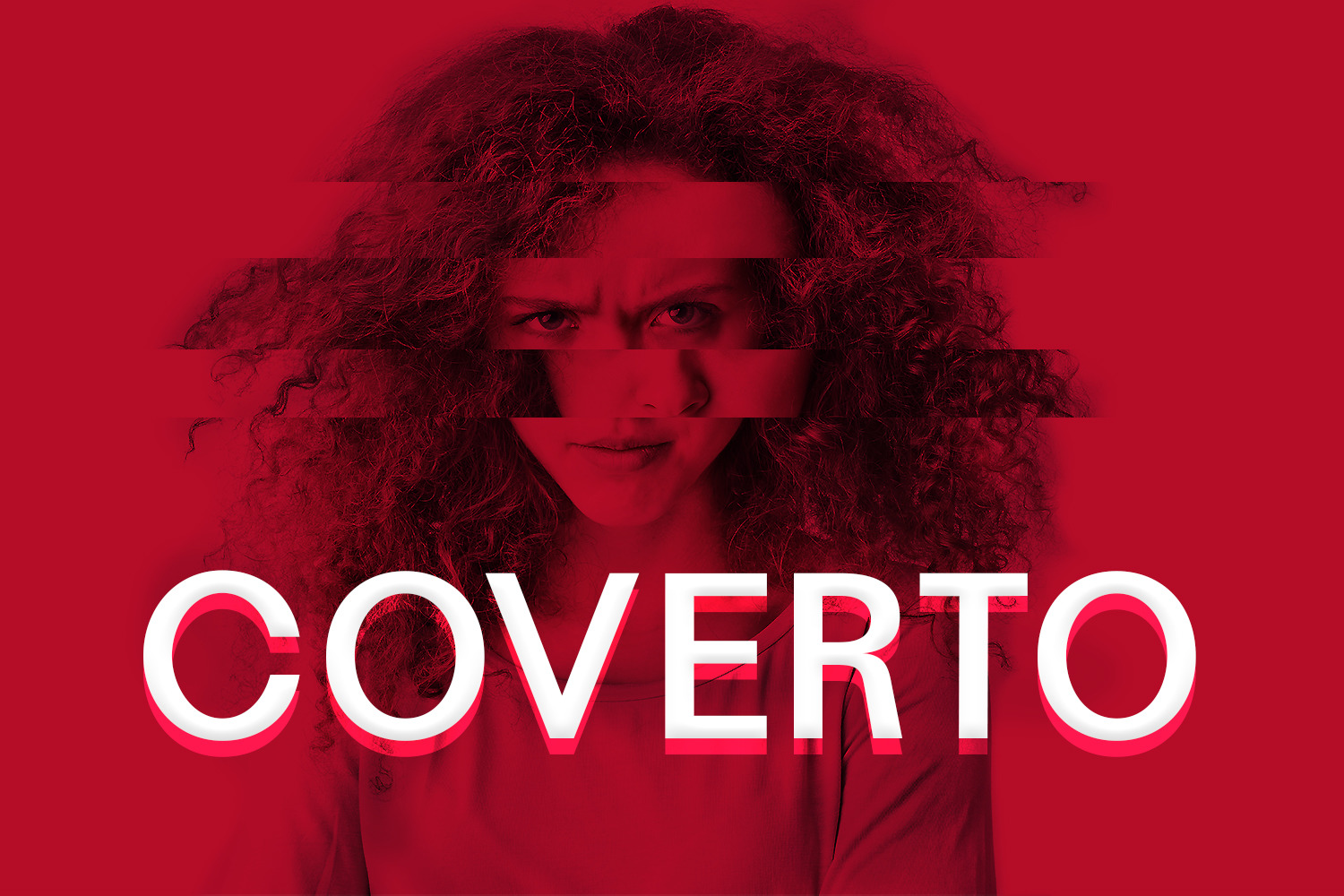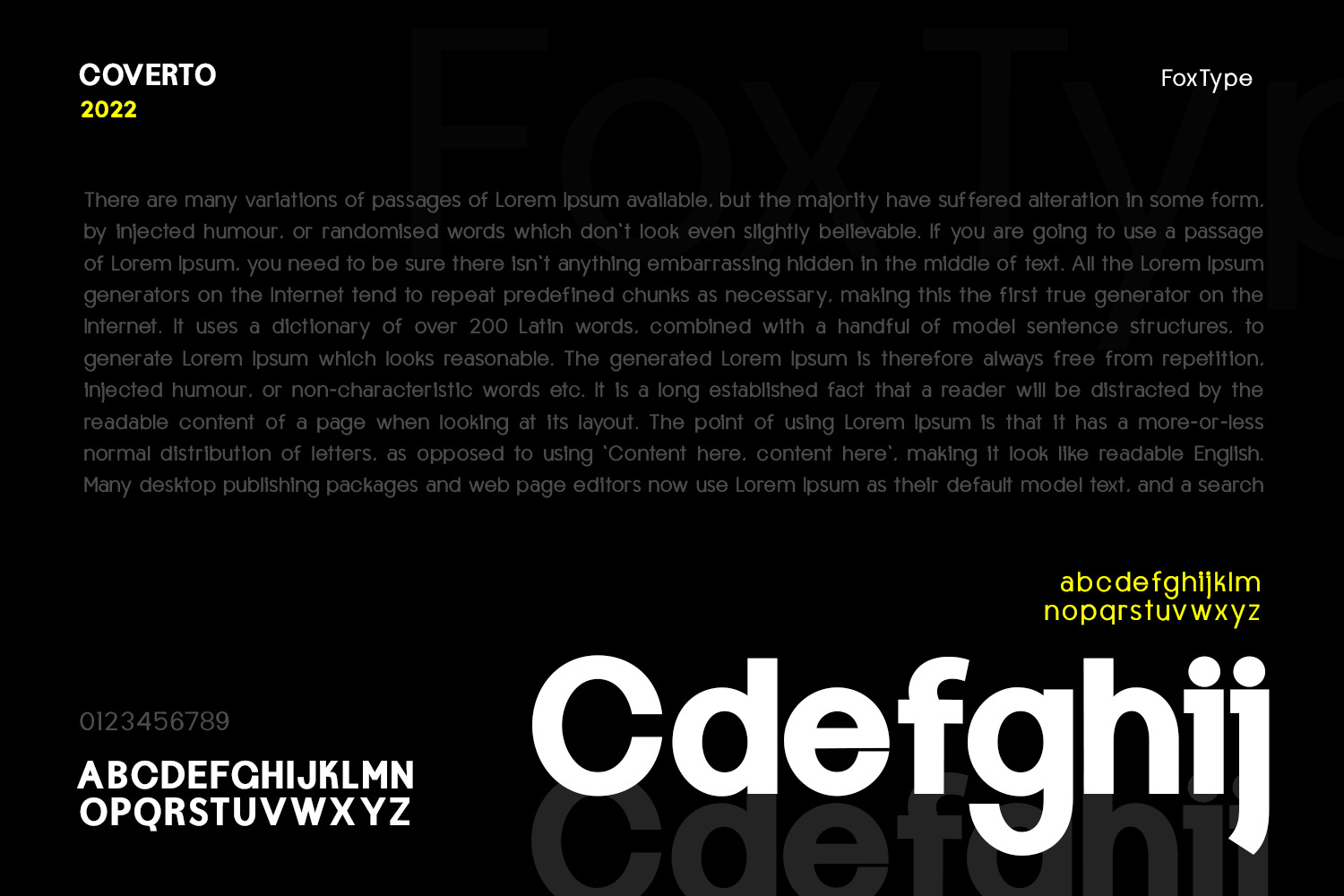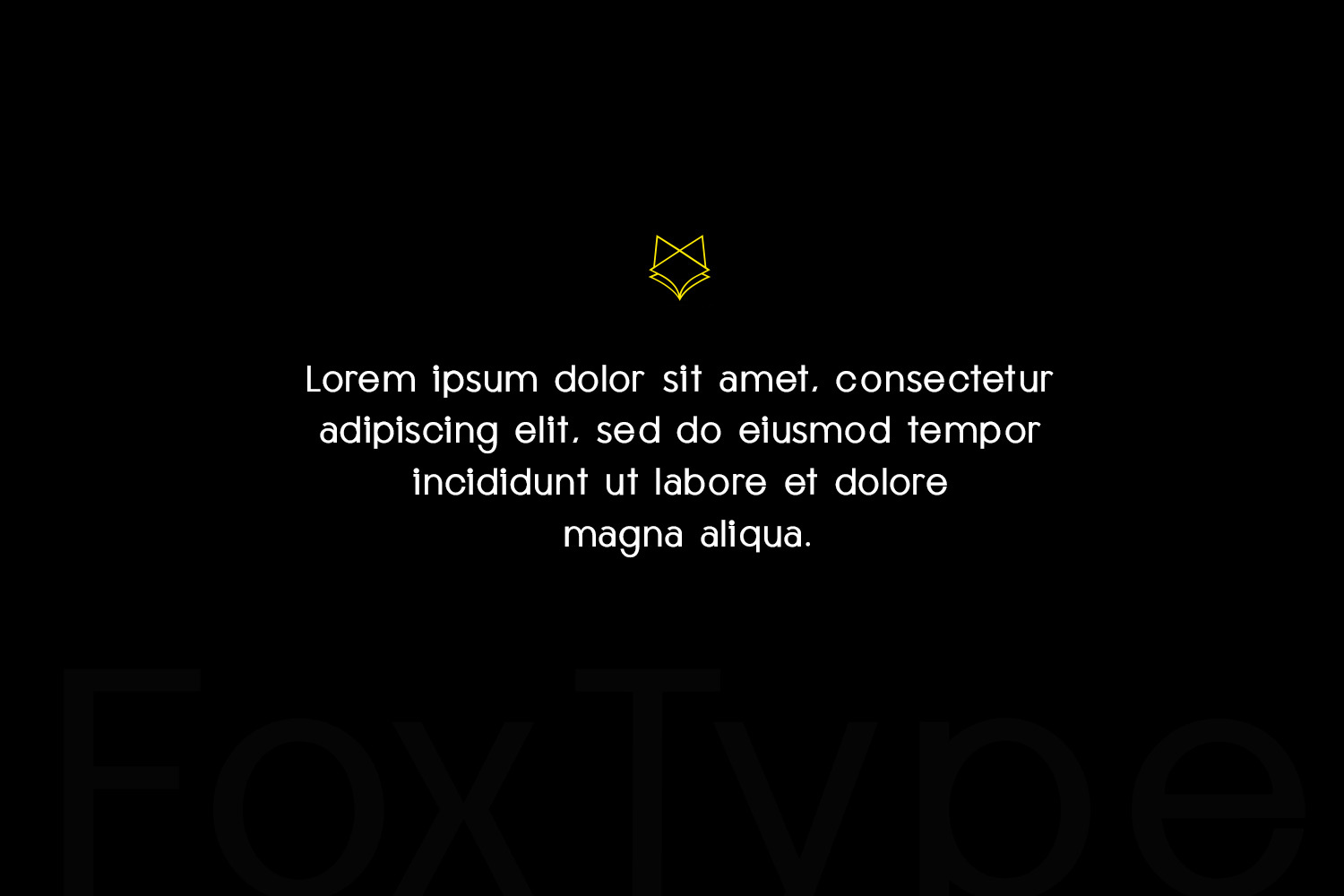
Coverto Display Typeface
Coverto Display is a Brand New Elegant Typeface with a powerful font family. It has a dependable and uncompromising style, with controlled letterforms and modern touches. It looks amazing in logos, magazines, and movies . Coverto Font would be perfect for branding, headlines, Captions, paragraph, and posters . The various weights allow you to experiment with a wide range of applications. It's created to make an impression without sacrificing its beauty and readability. It's shown a clean, minimalist, warmth, quirky, yet still purposed to be versatile
The Typeface includes four Weights - Regular, Medium, SemiBold, and Bold
All offer wide language support
Uppercases and Lowercases.
Numerals and extended punctuation.